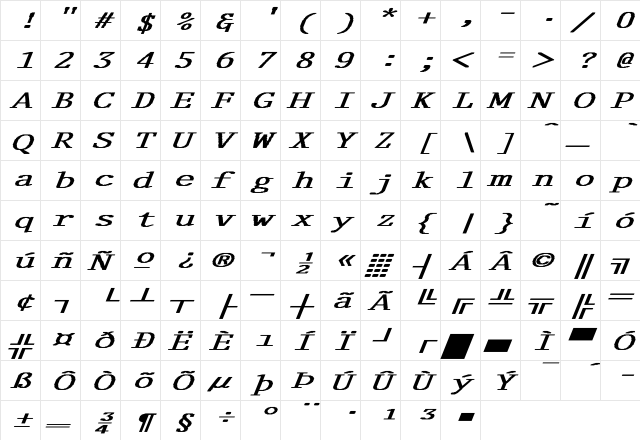
Delegate-Normal Ex BI Bold Italic
Design Context for Delegate-Normal Ex BI Typeface
Delegate-Normal Ex BI takes a measured approach to typography — its balanced proportions and neutral character make it a reliable workhorse for both digital and print work. Its italic angle brings a sense of urgency and motion to the letterforms. The heavy weight commands attention and anchors typographic hierarchies.
Pro Tip: Use Delegate-Normal Ex BI for emphasis, pull quotes, and subheadings where its slanted energy can add rhythm to the layout.